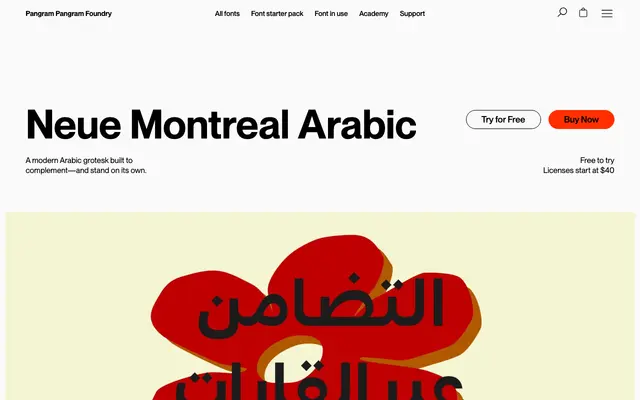
PP Neue Montreal Arabic
An Arabic companion to Neue Montreal in seven weights with a variable cut, built for bilingual identity work.
PP Neue Montreal Arabic is the Arabic version of the foundry's most-used sans, drawn to sit beside the Latin family in bilingual identity work. It runs across seven weights plus a variable cut, carries Cyrillic support, and keeps the calm, slightly display-leaning tone of the parent grotesque. Use it where Arabic and Latin scripts need to feel like one voice rather than two systems.
Arabic companion to PP Neue Montreal; seven weights plus a variable cut, with Cyrillic support carried over from the Latin family.